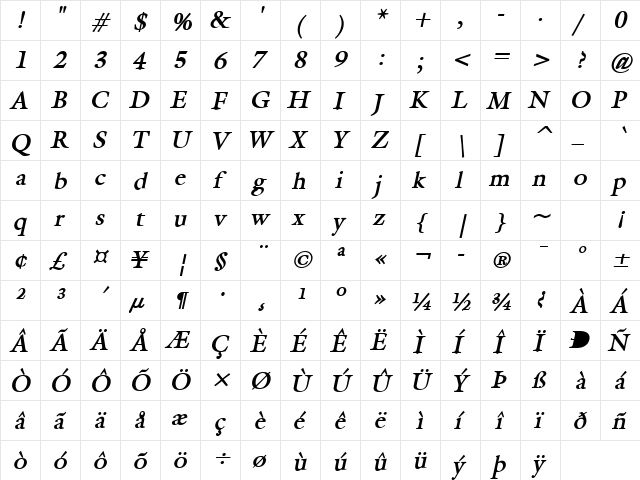
Galant Bold Italic
Design Context for Galant Typeface
Galant takes a measured approach to typography — its balanced proportions and neutral character make it a reliable workhorse for both digital and print work. The dynamic lean of this cut emphasises speed and emphasis in any layout. The heavy weight commands attention and anchors typographic hierarchies.
Pro Tip: Use Galant for emphasis, pull quotes, and subheadings where its slanted energy can add rhythm to the layout.